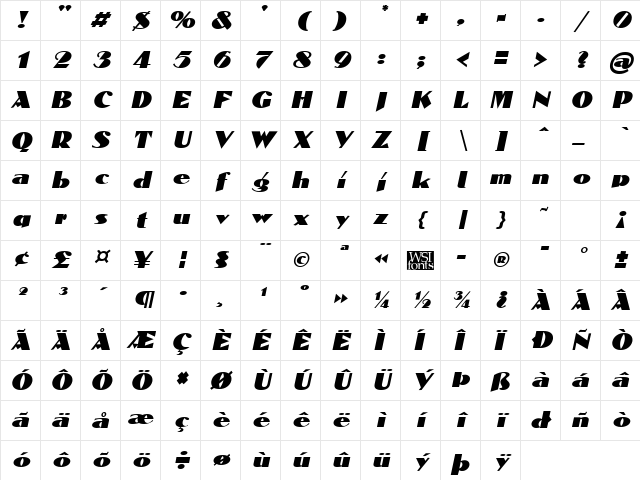
Domaign Italic
Complete Domaign Italic glyph index. Displaying only characters natively supported by Domaign Italic font.
Design Context for Domaign
Domaign is a composed and adaptable typeface that performs quietly and consistently across a wide range of design contexts. The slanted form adds forward momentum and visual energy.
Pro Tip: Use Domaign for emphasis, pull quotes, and subheadings where its slanted energy can add rhythm to the layout.